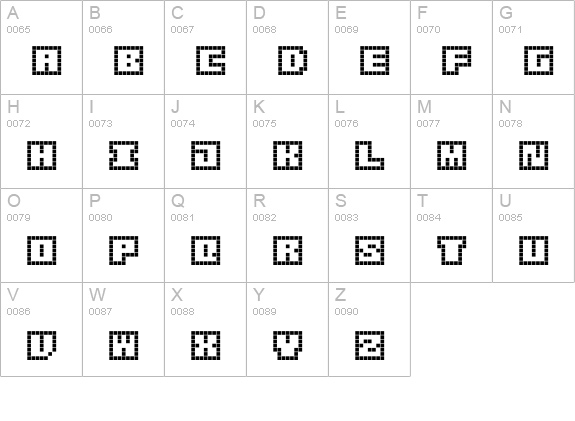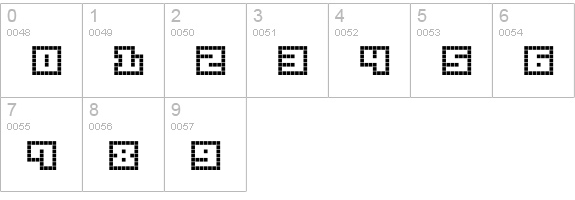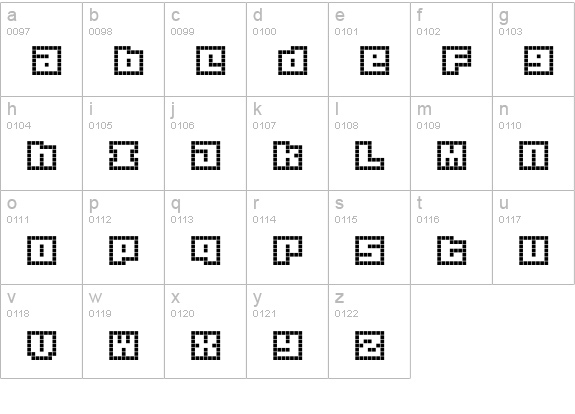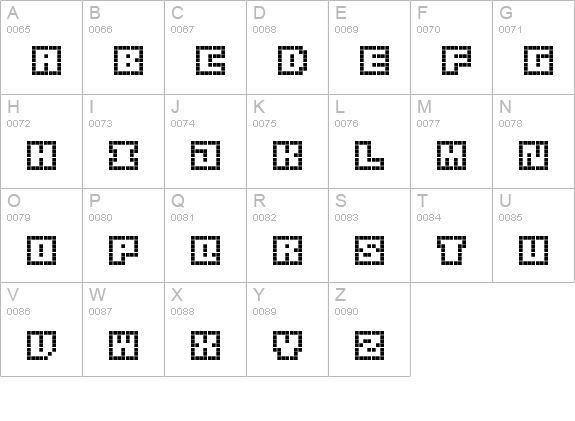
Origami Mommy Pixellated Font Details
Origami Mommy Pixellated font is a unique and creative typeface that brings a touch of whimsy to any design project. With its playful pixelated style, this font is perfect for adding a fun and modern twist to your creations. Whether you're working on a website, poster, or invitation, Origami Mommy Pixellated font is sure to make a statement. The best part? This delightful font is available for free download at FontsMarket.com. So go ahead and unleash your creativity with Origami Mommy Pixellated font today!